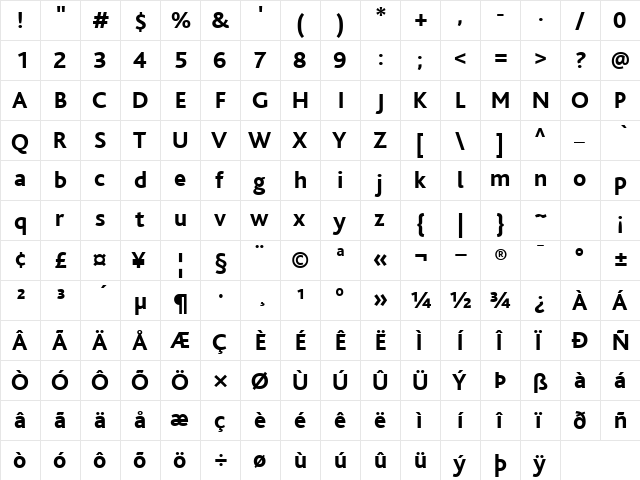
BlissExtraBold Regular
Design Context for BlissExtraBold Typeface
BlissExtraBold takes a measured approach to typography — its balanced proportions and neutral character make it a reliable workhorse for both digital and print work. The heavy weight commands attention and anchors typographic hierarchies.